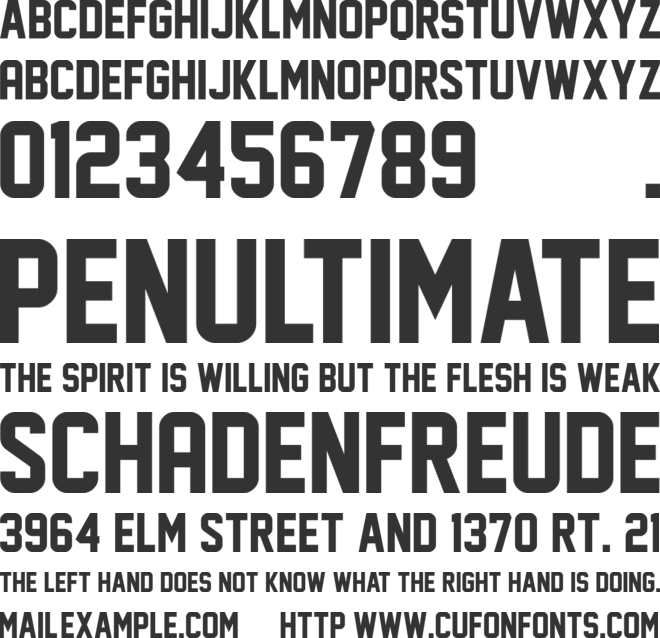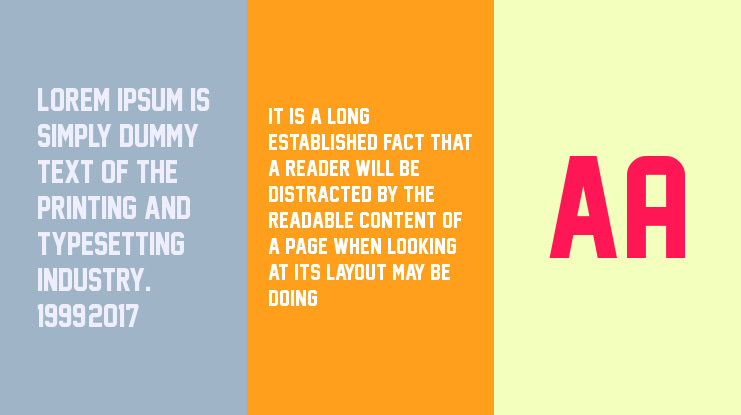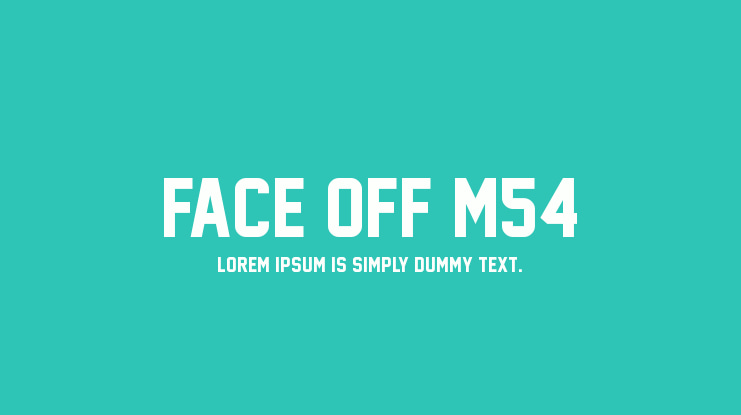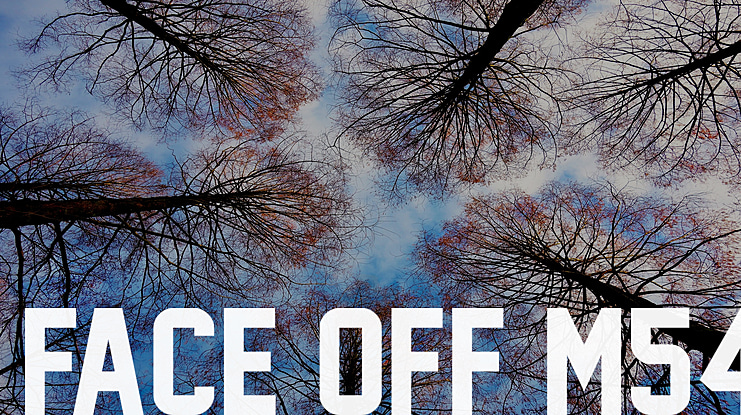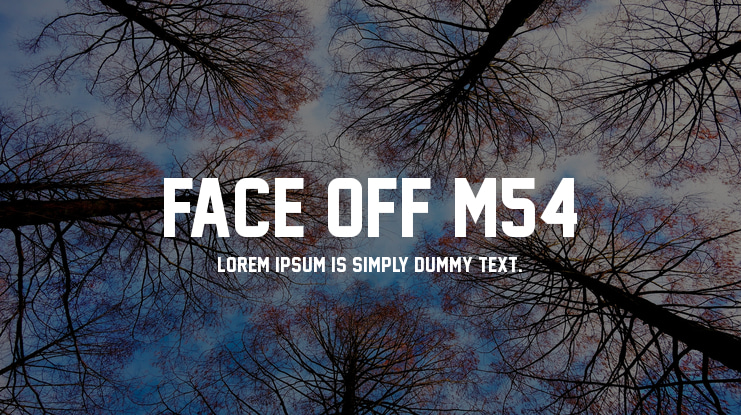
Face Off M54 Font
This is just a rounded version of my Jersey M54 font without the sharp sliced corners. It’s ideal for apparel design and naming on sports jerseys. The upper and lower case 'a' and 's' glyphs are different. The left and right curly brackets hold alternate glyphs for numbers '2' and '5'.